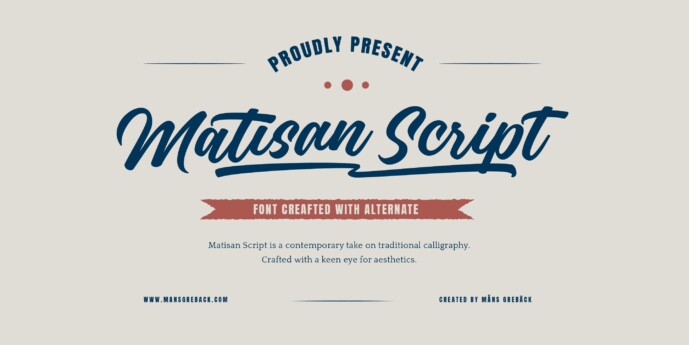
Matisan Script Font
Designer: Mans Greback
Matisan Script Font is characterized by its bold, yet delicate, brush strokes, imparting a sense of dynamism and motion.